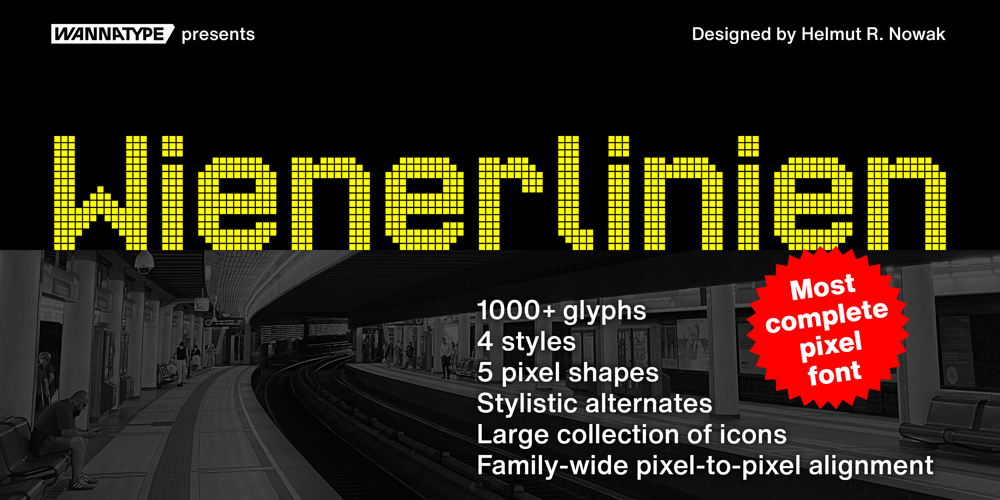
Wienerlinien Font Family was designed by Helmut R. Nowak and published by Wannatype. Wienerlinien contains 20 styles and family package options. Versatile pixel fonts inspired by underground LEDs in Vienna. 4 styles (Pro, Poster, Caption, Mosaique) with different shapes and proportions are bound to one pixel grid to be combined perfectly in 5 pixel shapes: Square, Rounded, Dots, Hatch, Polaris.Pro: strong emphasis, wide proportions, best for legible text. 400+ symbols, greek alphabet.Poster: strong + compressed for large text use.Caption: legibilty for small text use.Mosaique: monospaced tiles with letters and pattern.